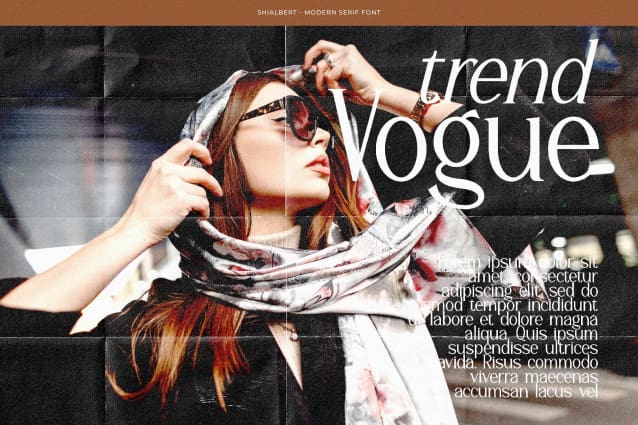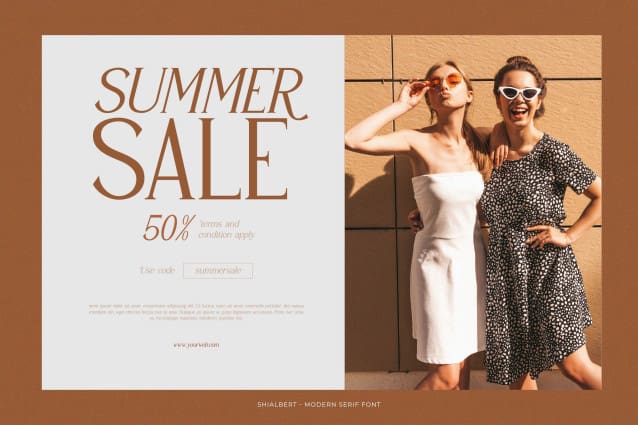
Shialbert Font
Shialbert Font – Modern Serif, from Denustudios, suitable for any projects such as: logos, branding projects, homeware designs, product packaging, mugs, quotes, posters, shopping bags, t-shirts, book covers, name card, invitation cards, greeting cards, label, photography, watermark, special events, and all your other lovely projects that need a modern serif taste.